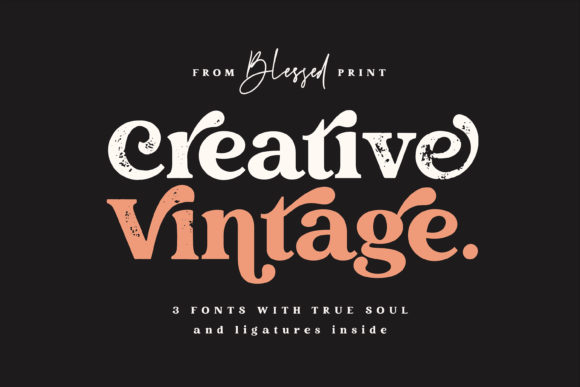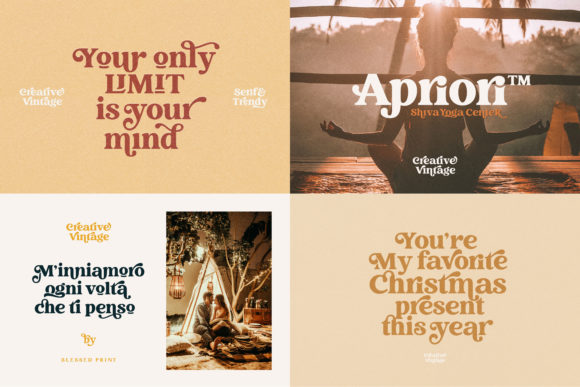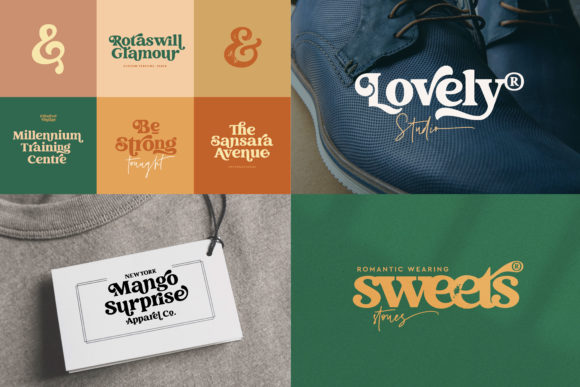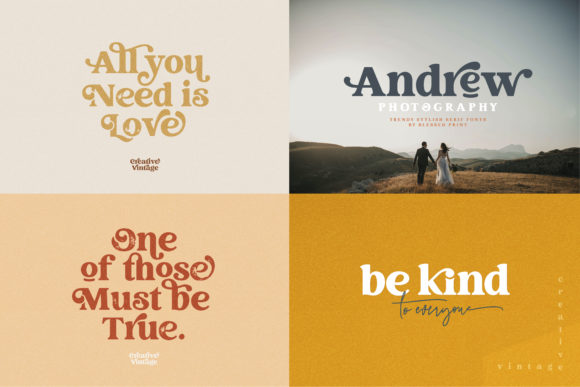
Creative Vintage Font
About the Creative Vintage Font
The wait is over! The incredible Creative Vintage Font is now available for your design toolkit. Creative Vintage is an incredibly unique and interesting duo font (display and script). It has a bold yet incredibly versatile and adaptable style, so add it confidently and you will love the outcome.
Creative Vintage thrives in display applications such as logos, headlines, posters, and short-form branding elements where its bold character shines. The script style is ideal for short taglines or impactful quotes. Avoid using it for extended body text or UI elements; its highly decorative nature reduces readability in continuous blocks.
Its core personality is bold and playful, with a vintage aesthetic lending a touch of nostalgic charm. This makes it perfect for brands targeting a retro-inspired audience or those seeking a distinctive, eye-catching aesthetic. Consider pairing the display font with a clean sans-serif like Montserrat for a balanced contrast, or a classic serif such as Garamond for a more traditional feel. The script pairs well with a simple, geometric sans-serif for a modern yet vintage look.
For maximum impact, use the display font sparingly, letting its unique character stand out. Overuse can lead to visual clutter.
Creative Vintage Font Usage Examples
Creative Vintage Font Example